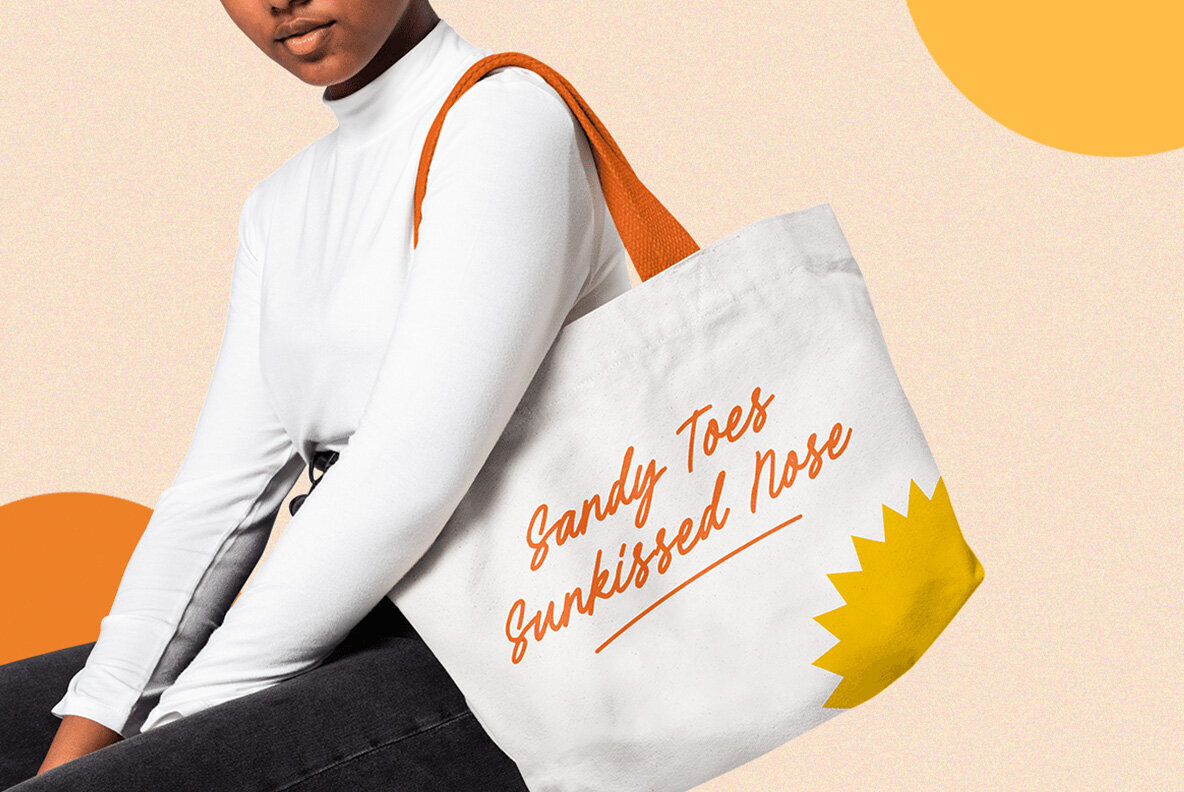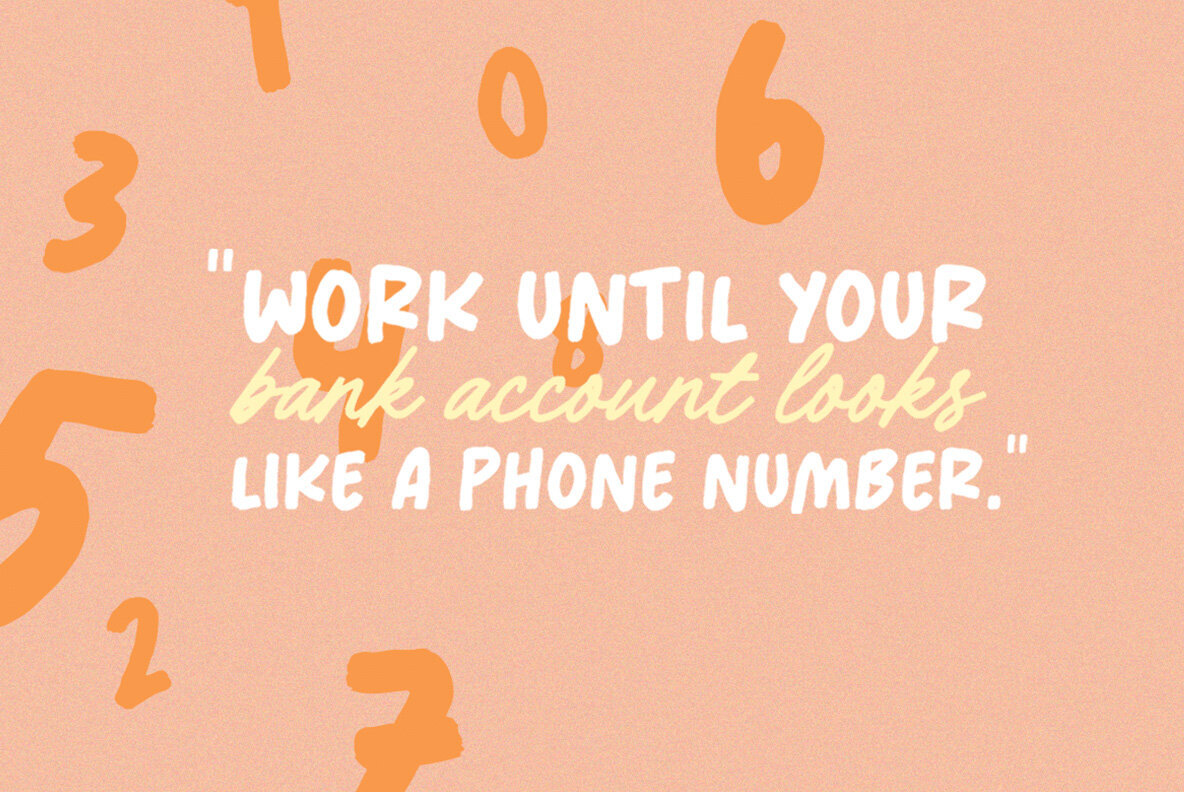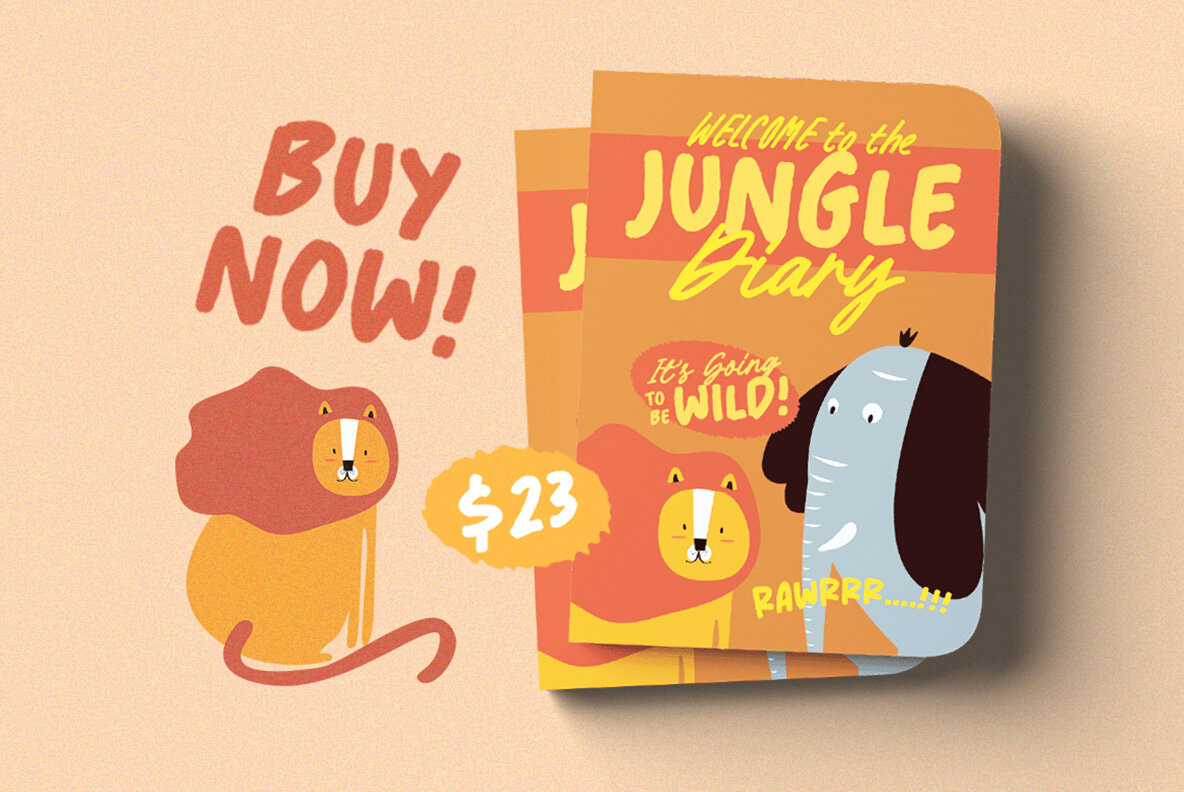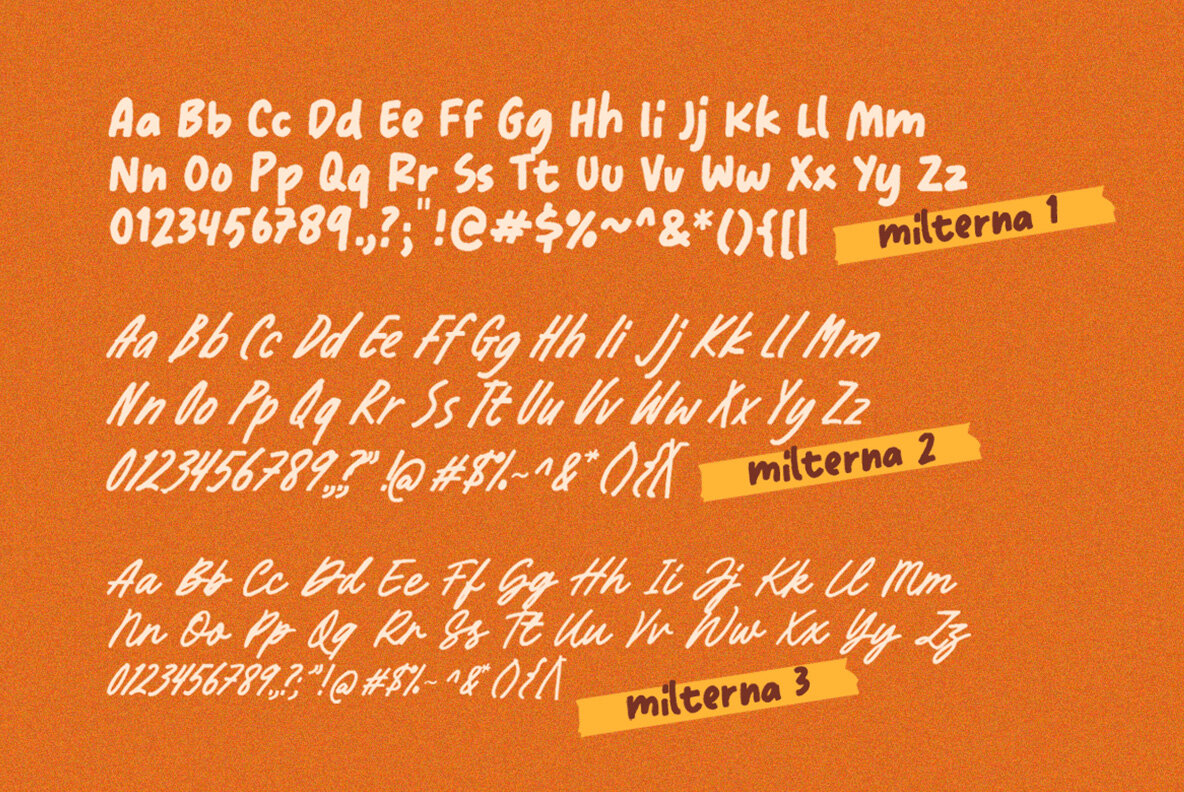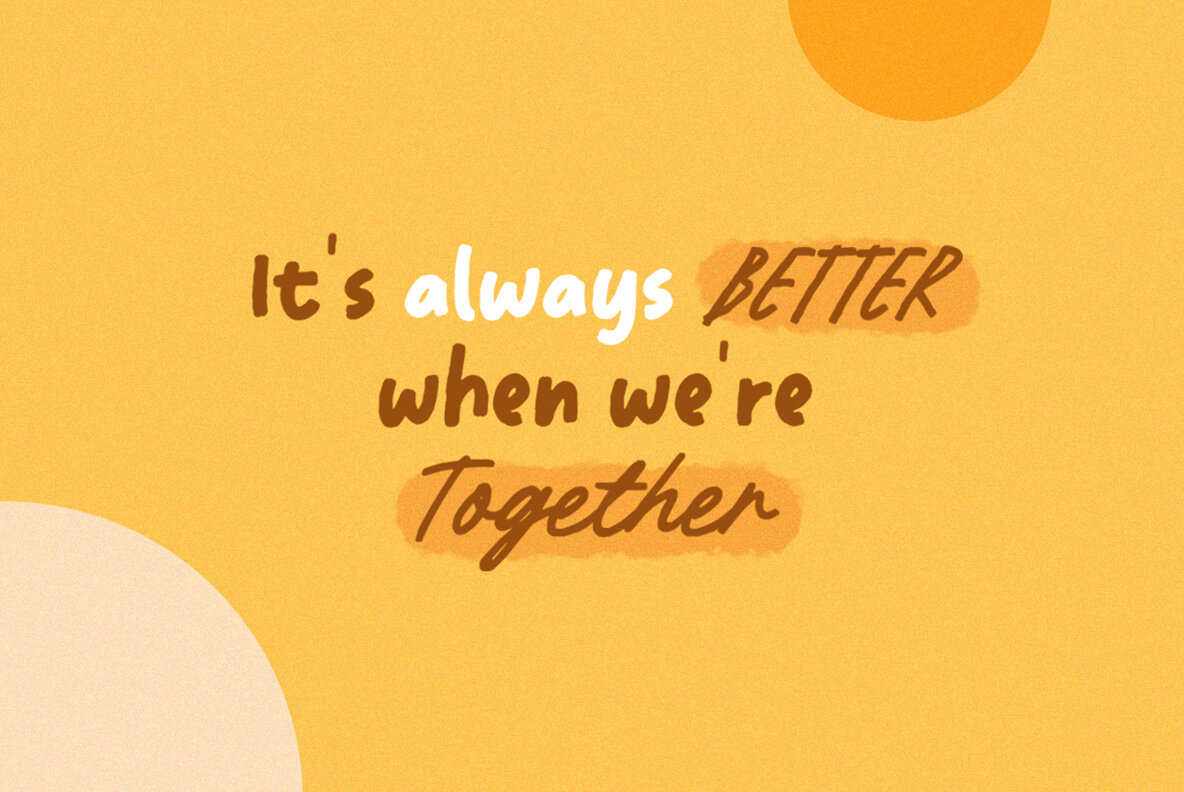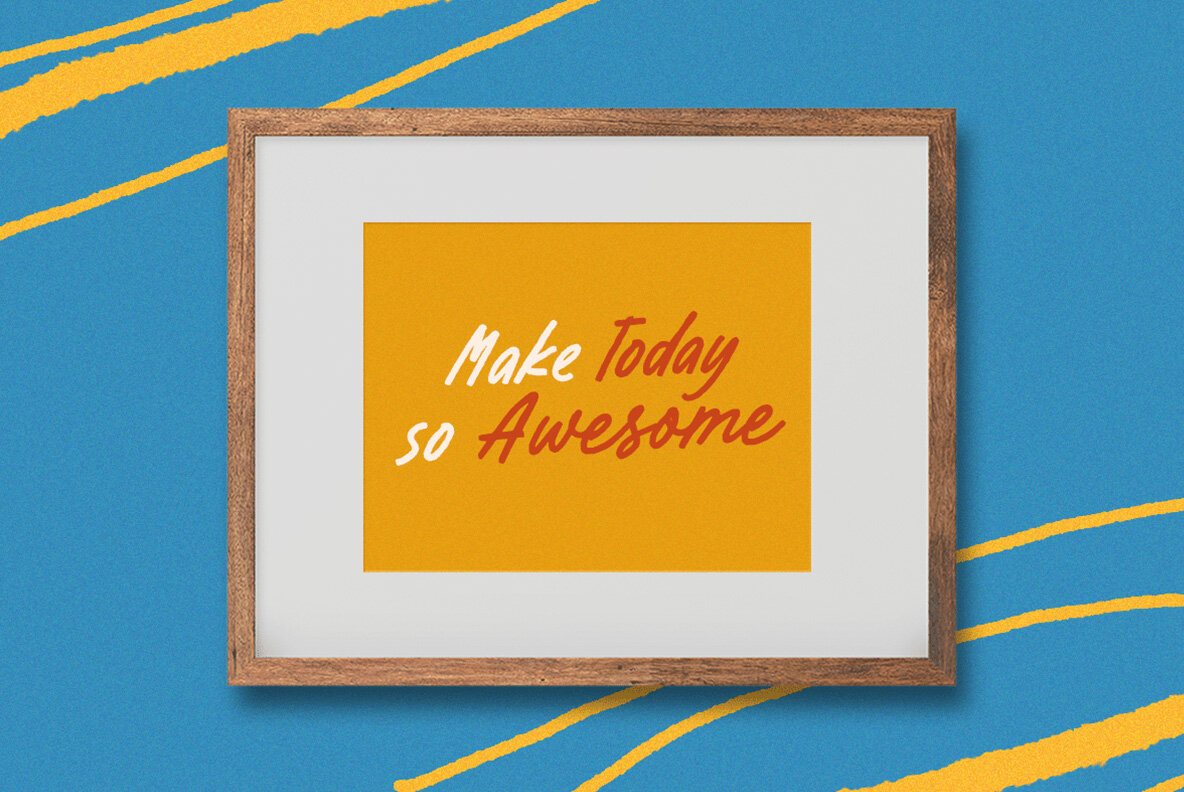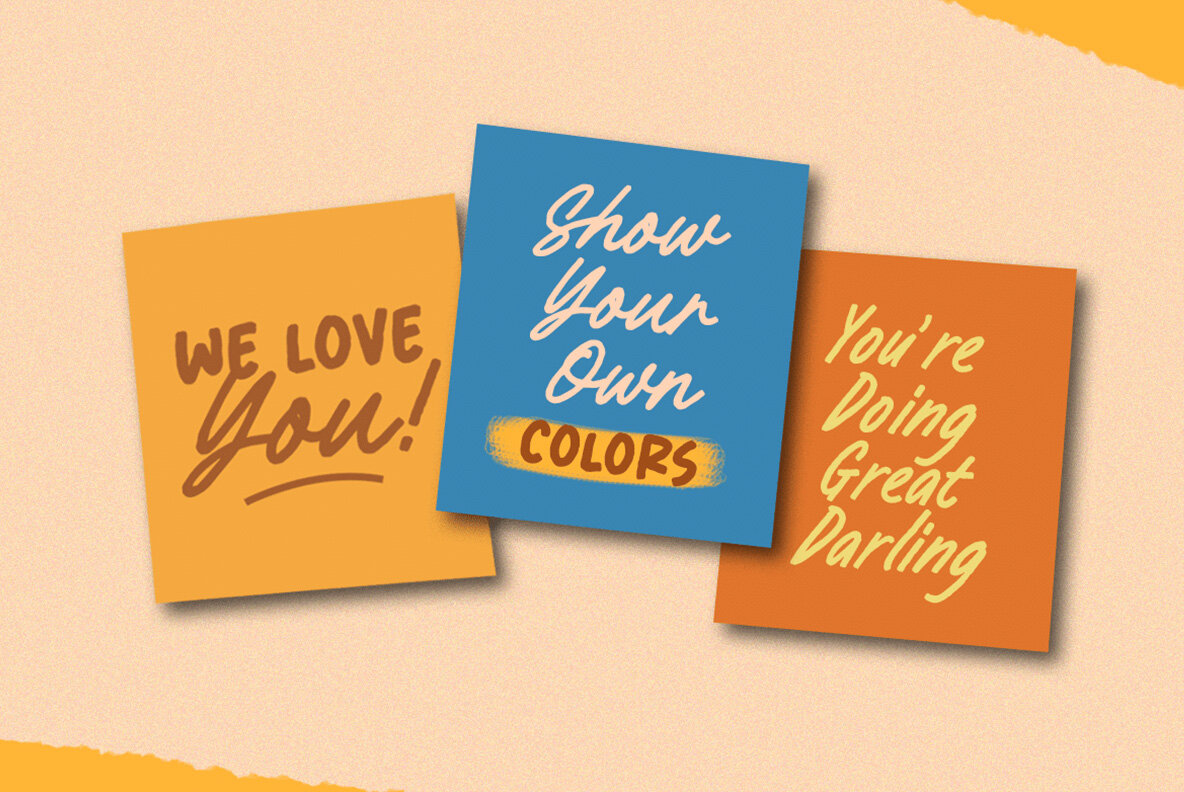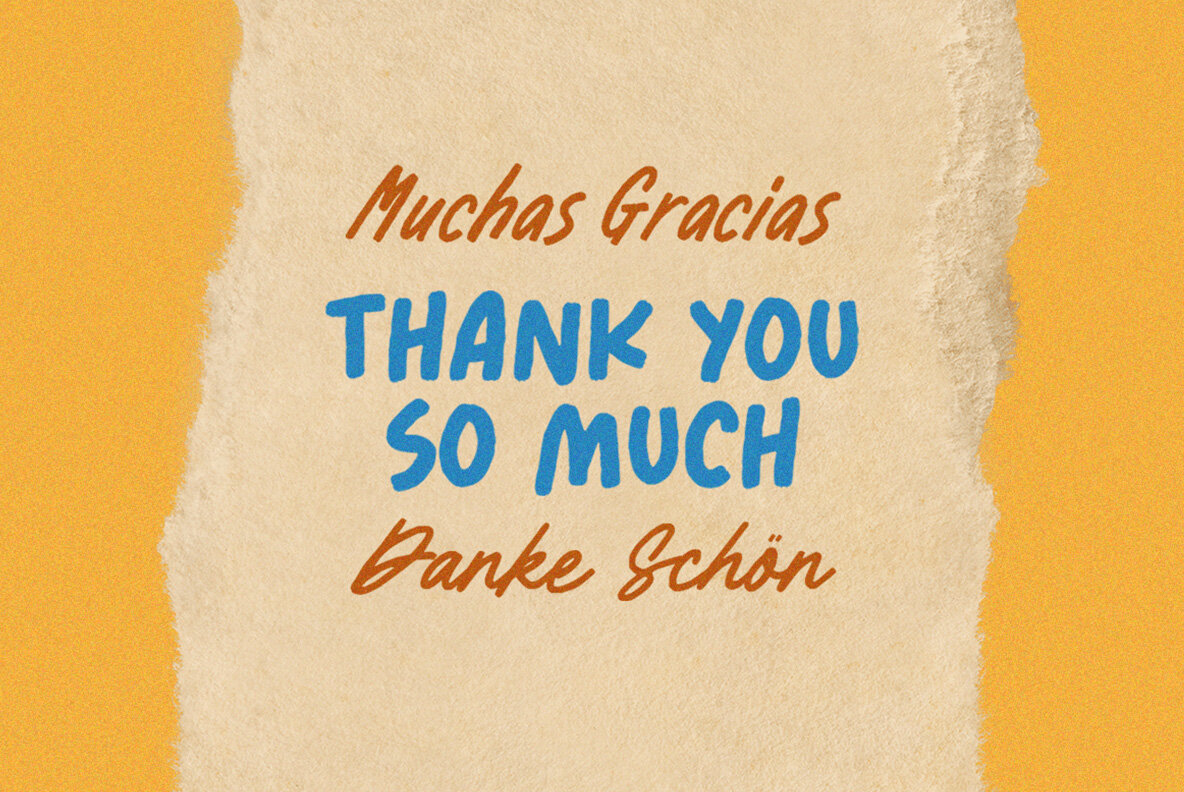
Milterna Font
Milterna is a charming typeface inspired by the nuances of manual handwriting. With its three distinct styles, this font invites creativity and versatility in design projects, perfect for creating unified lettering compositions. Its application shines in branding elements, such as logos, and various formal and informal forms like invitations, labels, magazines, and cards. To fully appreciate Milterna's features, we recommend software supporting OpenType and Glyphs panels, such as Adobe apps or Corel Draw. For guidance on leveraging OpenType features, visit this resource.Milterna: A Whimsical Handwritten Typeface